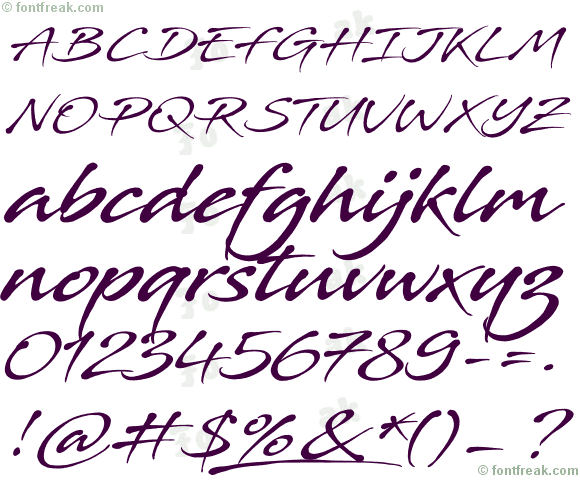
Stingray
About Stingray
Stingray, designed by Youssef Habchi, is a captivating script font that exudes elegance and fluidity. This beautifully crafted typeface features a graceful flow with its sweeping strokes and gentle curves, making it a standout choice for those seeking a touch of sophistication in their design projects. The stroke weight varies subtly, creating a harmonious contrast that enhances its visual appeal. The spacing between the letters is well-considered, ensuring readability while maintaining an artistic flair. The decorative elements, such as the elongated ascenders and descenders, add a unique charm that sets Stingray apart from conventional script fonts.
This font is perfect for a variety of use cases, including wedding invitations where its romantic style can convey heartfelt sentiments. It also shines in movie posters, adding a dramatic flair that captures attention and evokes emotion. Restaurant menus can benefit from Stingray's stylish appearance, enticing customers with a sense of sophistication. Additionally, it works wonderfully for branding materials, helping small business owners create memorable logos and promotional content that stand out in a crowded market. Content creators will find Stingray a delightful choice for social media graphics and marketing materials, ensuring that their message is presented with elegance.